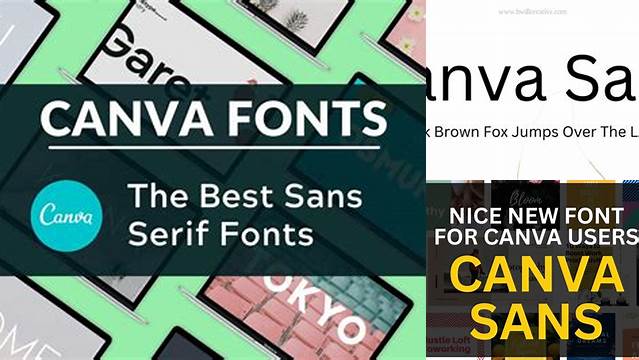
Free Canva Sans Font & Google Fonts: A Guide
Hey guys, ever wondered about the Canva Sans font and how you can get your hands on it for free? Well, you're in the right place! This guide is all about the awesome Canva Sans font, how you can use it, and where to find it, including its availability on Google Fonts. Let's dive in and explore everything you need to know about this versatile font!
What is Canva Sans Font?
Alright, first things first: what exactly is Canva Sans? In simple terms, it's a modern, clean, and highly readable sans-serif font. It's one of the go-to fonts within the Canva platform itself, known for its friendly and approachable vibe. Its clear and straightforward design makes it perfect for a wide range of uses, from headings and body text to social media graphics and presentations. Canva Sans is designed to be super versatile, ensuring your text looks great no matter where you use it. It has a balanced design that makes it easy on the eyes, and it’s a fantastic choice for pretty much any design project. The font is a workhorse, delivering a consistent and professional look across all your designs. It's an excellent option whether you're crafting a simple social media post or a detailed document. The font’s clean lines and minimalist design make it a winner for digital and print projects, giving your designs a modern and sleek feel. Its versatility is its strong suit. Because it works well in various sizes and styles, it is a great option for both display text and long-form content. This means it adapts seamlessly to different applications, making your work look consistent and professional. Plus, its readability means your audience can easily understand your message, no matter the context. The font's modern feel will keep your designs fresh and appealing. It's a top choice for anyone looking to enhance their designs with a contemporary and polished appearance. Its adaptability and ease of use make it a must-have for designers of all levels, from beginners to pros. Its popularity stems from its ability to maintain clarity and style in all kinds of designs, and this makes it a favorite for professionals. The neutral yet stylish design adds that touch of sophistication, elevating any design. With its clean lines and inviting feel, Canva Sans is more than just a font; it's a design companion.
Canva Sans Font: Key Features and Benefits
Let’s talk about why Canva Sans is so popular. Several key features make it a top choice for designers everywhere. Firstly, its readability is off the charts. The design ensures that text is easily readable at various sizes and on different backgrounds. This is super important for both digital and print materials. Then we have its versatility. Canva Sans works great in a whole bunch of different contexts. Whether you’re designing a website, creating a presentation, or crafting social media content, this font has you covered. It adapts seamlessly to all your needs. Another perk is its modern and clean aesthetic. This font has a contemporary vibe that helps keep designs looking fresh and up-to-date. It brings a sleek and professional feel to your work. And, hey, did you know that Canva Sans is available in multiple weights and styles? This lets you emphasize different parts of your text and create visual interest. From light to bold, you’ve got options! The key benefits are numerous. It's super user-friendly and offers a consistent and professional look across all your projects. It is a great way to improve the overall quality of your design work. The font’s versatility and modern style mean it looks great in so many applications. This is why so many people love Canva Sans; it’s not just a font, it’s a design solution. It's ideal for both casual and professional design projects. It makes your designs stand out, giving them a sophisticated, clean look, and enhancing their appeal. It’s a great way to create visually appealing content that keeps your audience engaged. Its clean lines and friendly appearance make it an essential tool for any designer’s toolkit. By using Canva Sans, you’re making a statement: you care about quality and readability.
Canva Sans on Google Fonts: Exploring Alternatives
Alright, let's talk about Google Fonts again. Google Fonts is a goldmine for free, high-quality fonts, and you can absolutely find great alternatives to Canva Sans there. While the exact Canva Sans isn’t on Google Fonts, the platform is loaded with fonts that share similar characteristics. Here's how to find them: First, visit the Google Fonts website. Next, use the search bar. Type in keywords such as